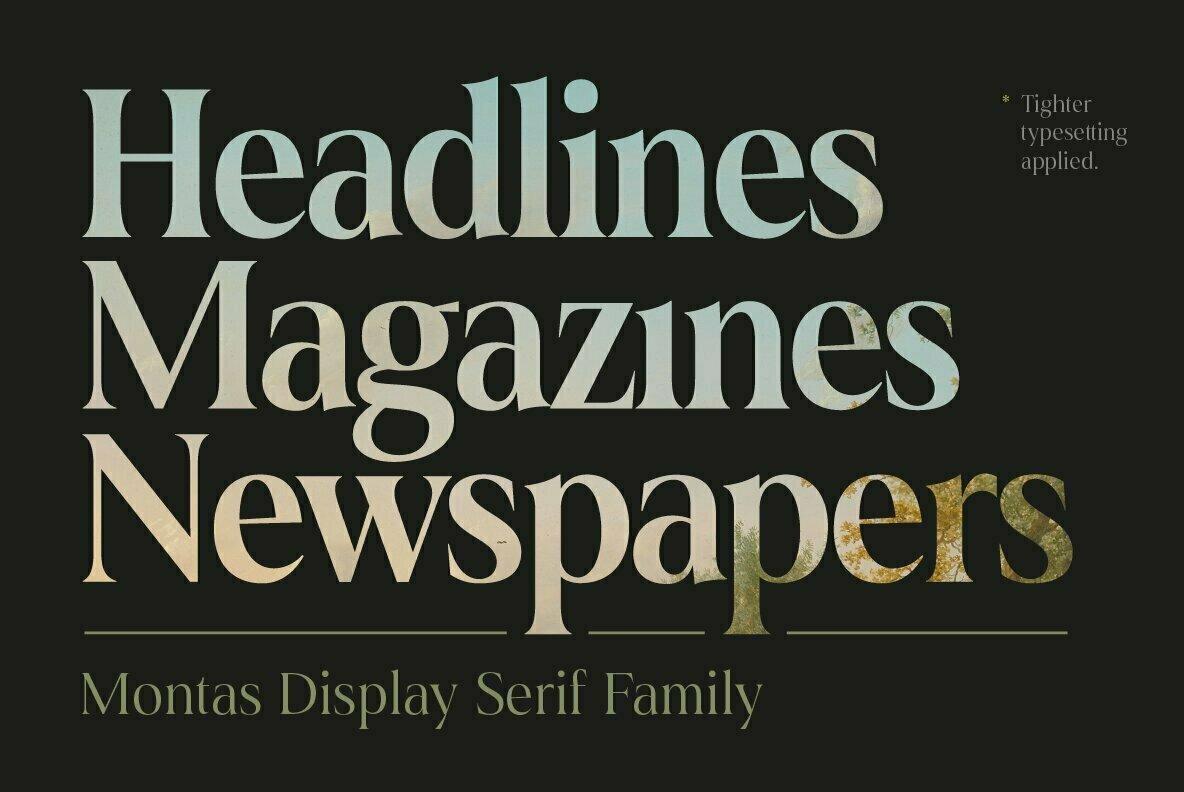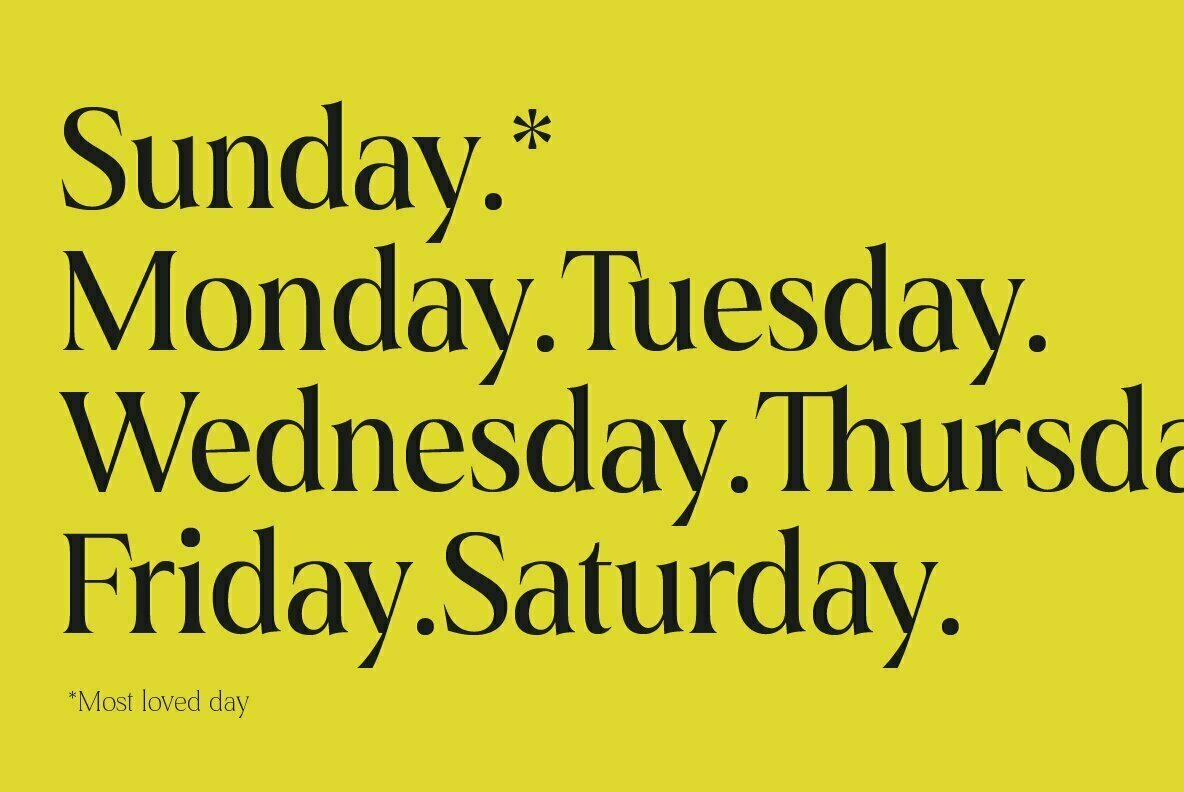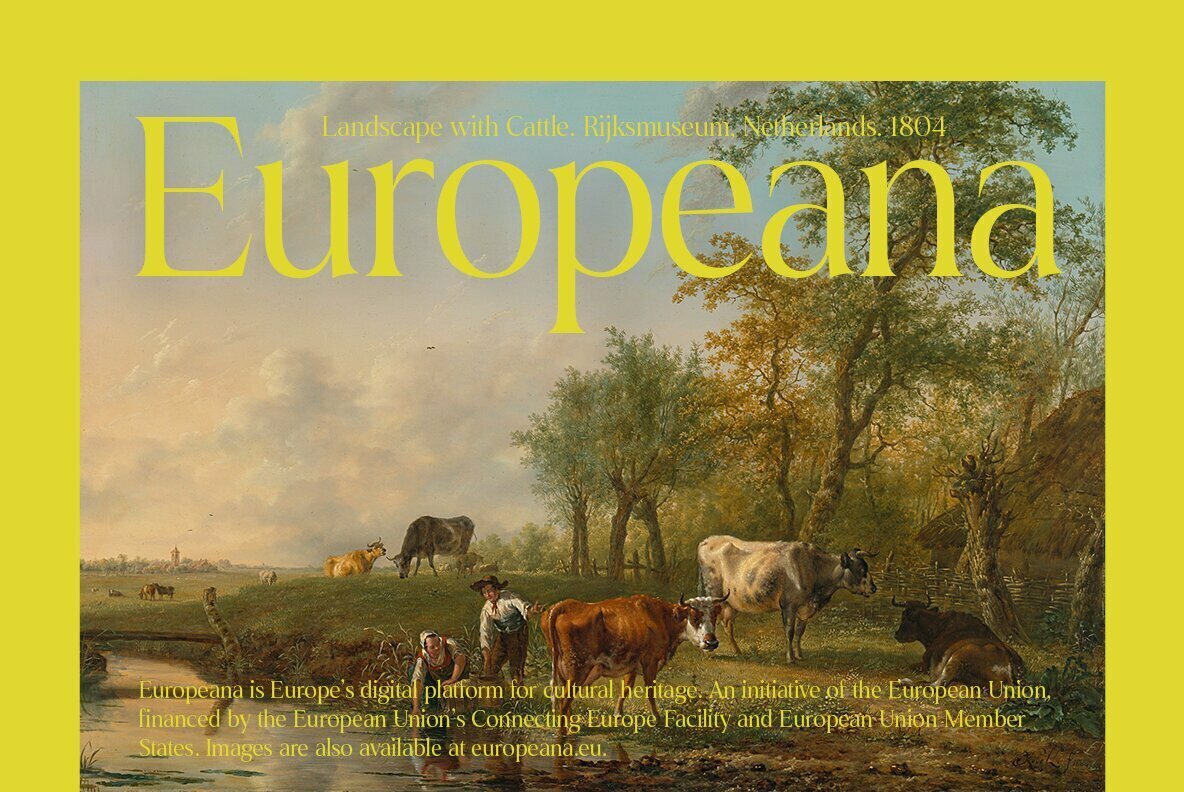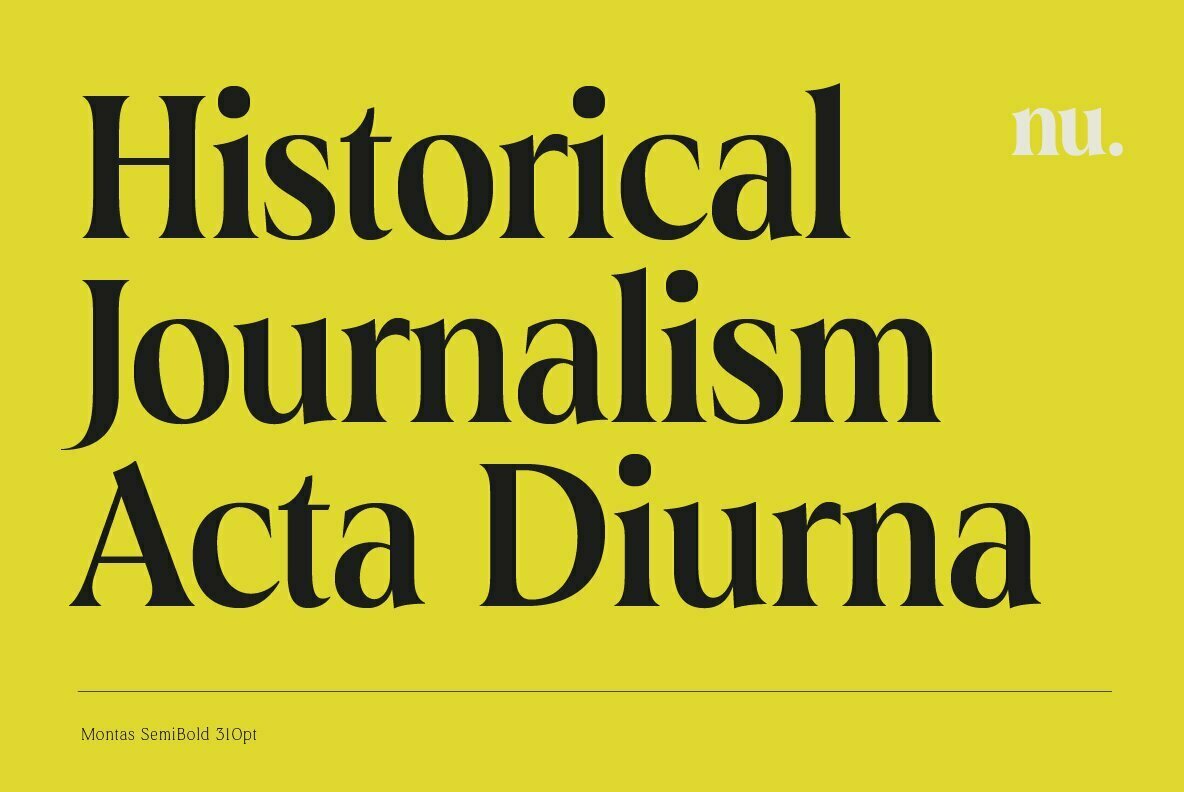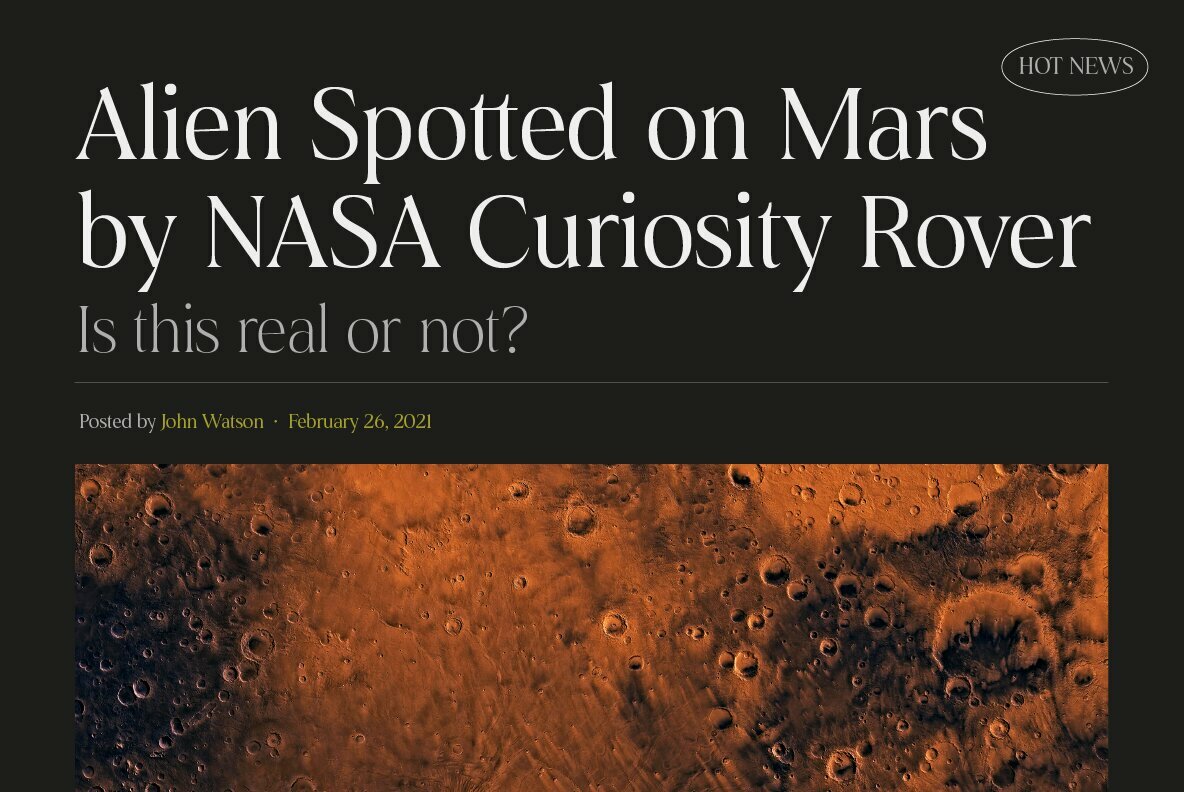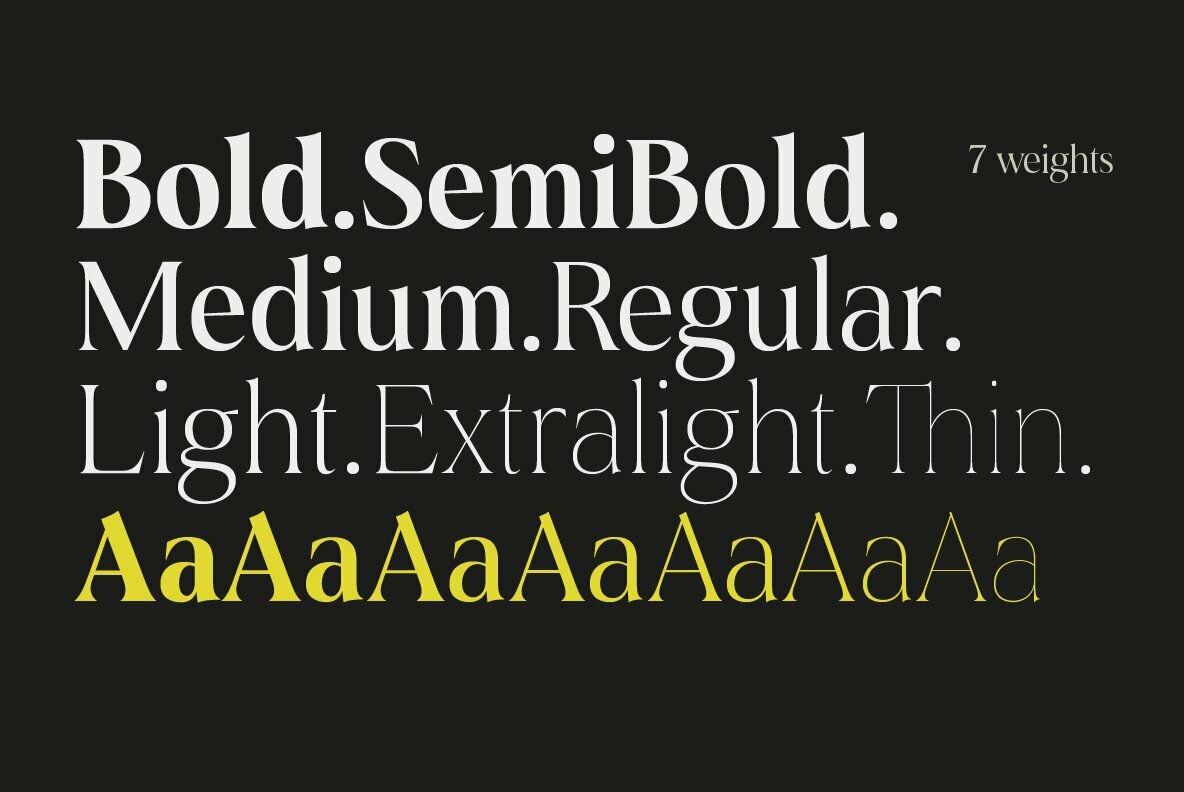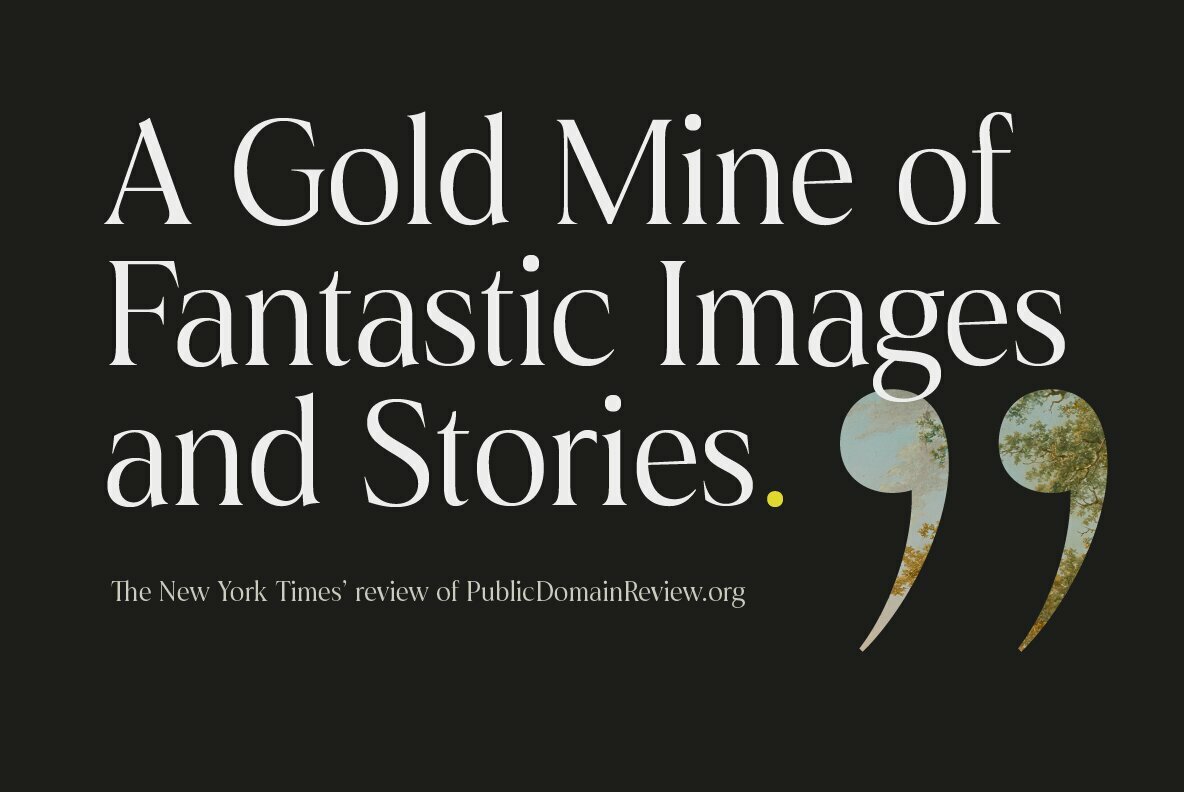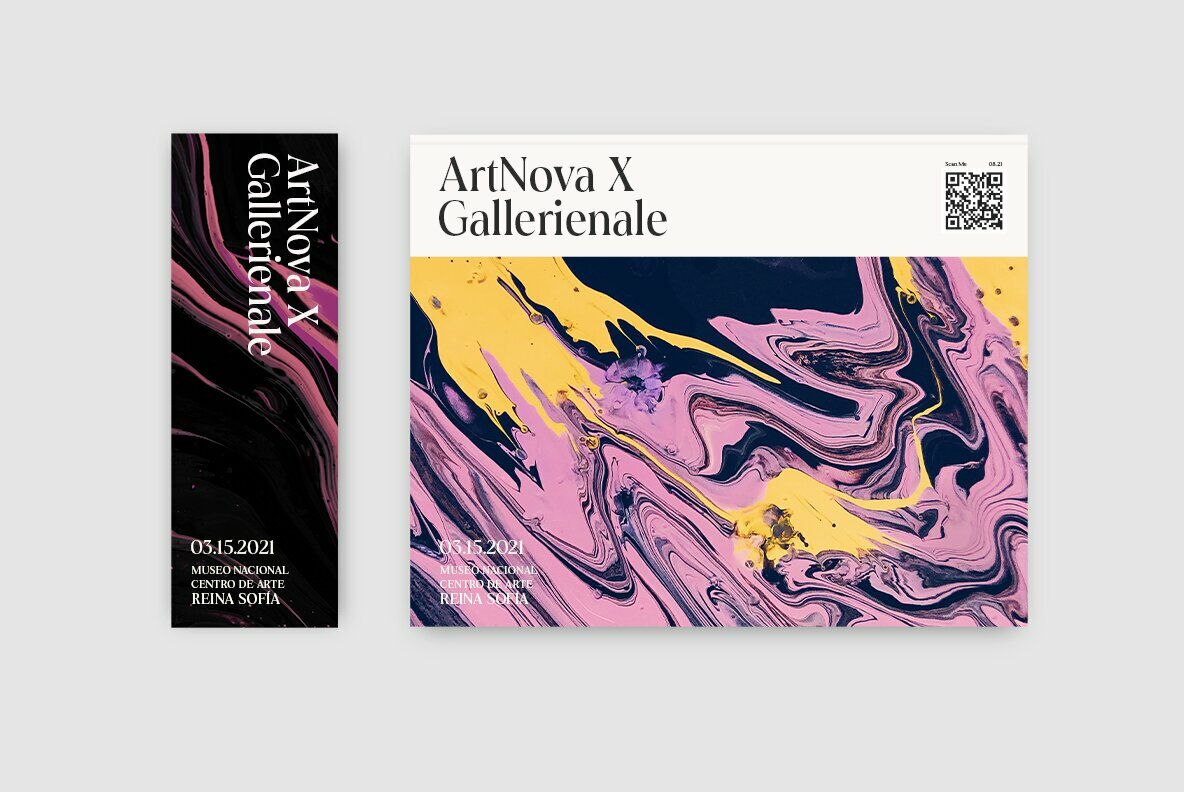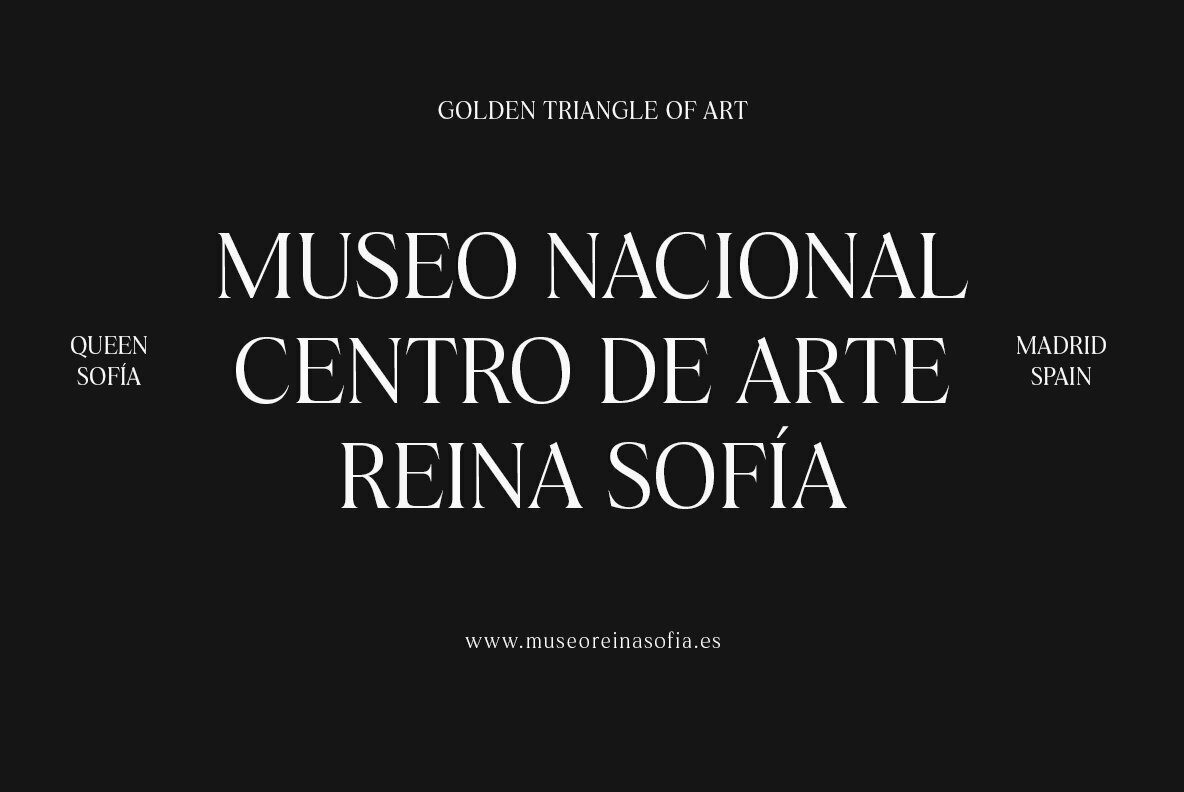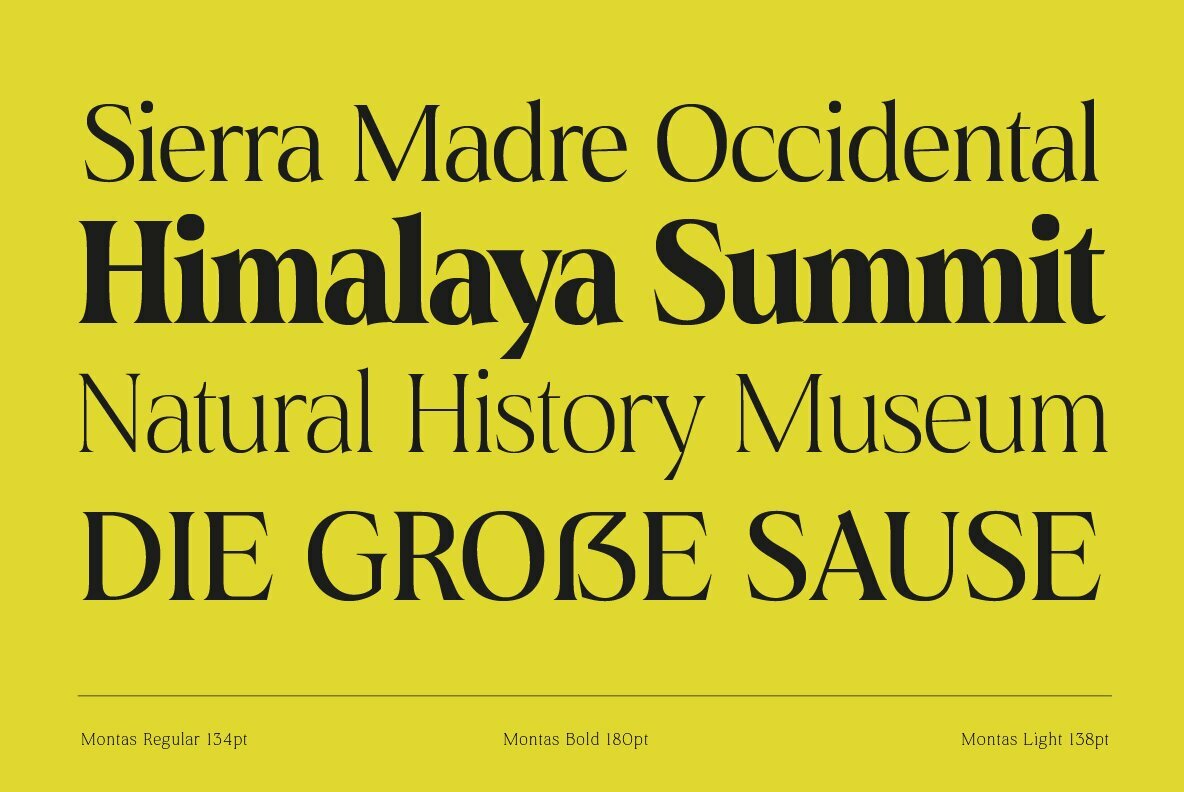
Montas Font
Montas by Nasir Udin stands as a testament to the timeless elegance of serif typography. This display serif font is crafted to excel in both vintage-themed and modern design projects. Its high contrast accents each stroke, offering a bold expression that demands attention. Features:Montas: Elegant Display Serif with High Contrast